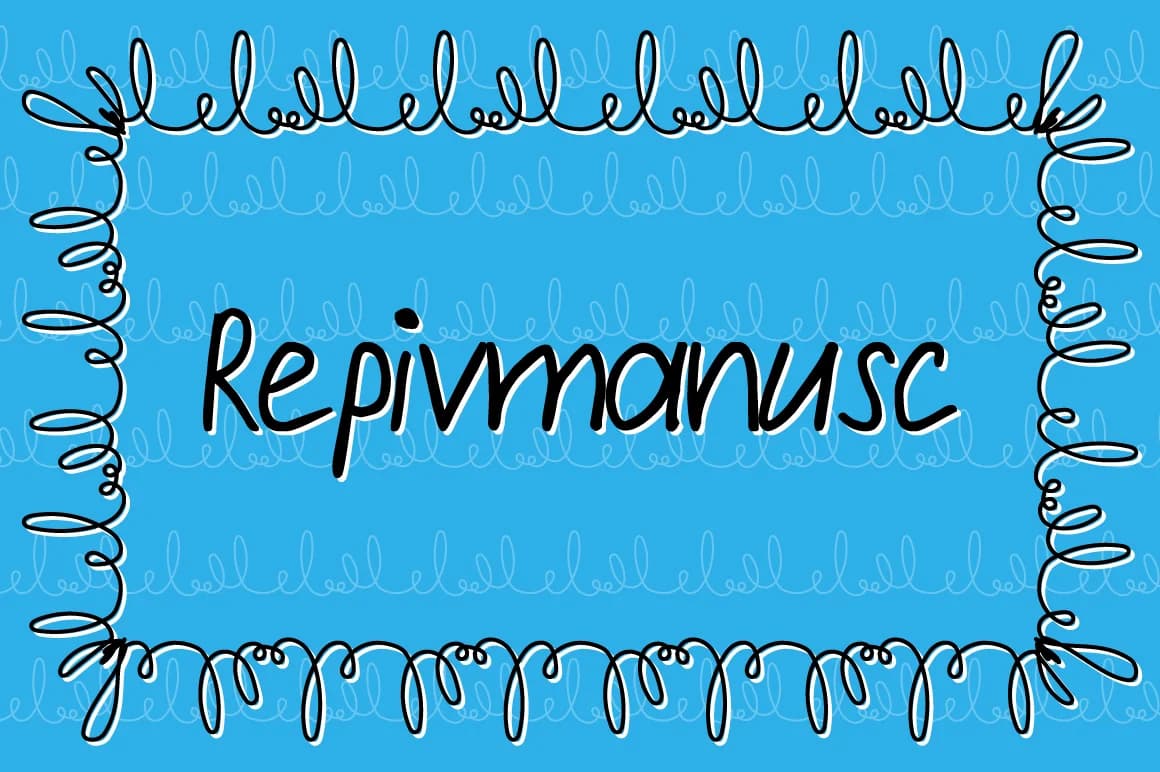
About Repivmanusc Font
Repivmanusc by viper78 is a relaxed handwritten script font that brings organic warmth and approachable character to design work. The casual flowing letterforms create an authentic human quality that feels genuine and personable rather than artificially informal or overly styled.
This script excels for personal stationery projects, greeting card designs, and boutique product labels where conveying personality and authenticity truly matters. DIY craft signage, wedding invitation suites, and indie product packaging all benefit from its friendly, intimate aesthetic that speaks to customers and recipients. The font's readable letterforms work equally well for social media graphics, brand identity systems, and lifestyle blog headers where conversational typography strengthens connection. Its natural versatility makes it suitable across multiple design applications, from minimalist layouts to more eclectic creative projects that demand distinctive character.
Designers working on small business branding, artisan goods packaging, and handmade product labels will particularly appreciate how Repivmanusc conveys genuine craftsmanship and authenticity through its design. The relaxed letterforms create immediate connection with audiences while maintaining professional-level application across both print and digital mediums. Whether you're designing cohesive stationery systems, developing contemporary greeting card collections, or building visual identity for creative entrepreneurial ventures, this script delivers the natural handwritten quality and warmth you're seeking. Get Repivmanusc on Creative Fabrica and bring authentic handwritten character to your next creative project.
Repivmanusc Font is a script font that shines as a display or heading face. Pair it with a clean sans-serif or serif font for body text β the contrast creates a clear hierarchy while the two styles stay balanced and easy to read.
Repivmanusc Font
by viper78